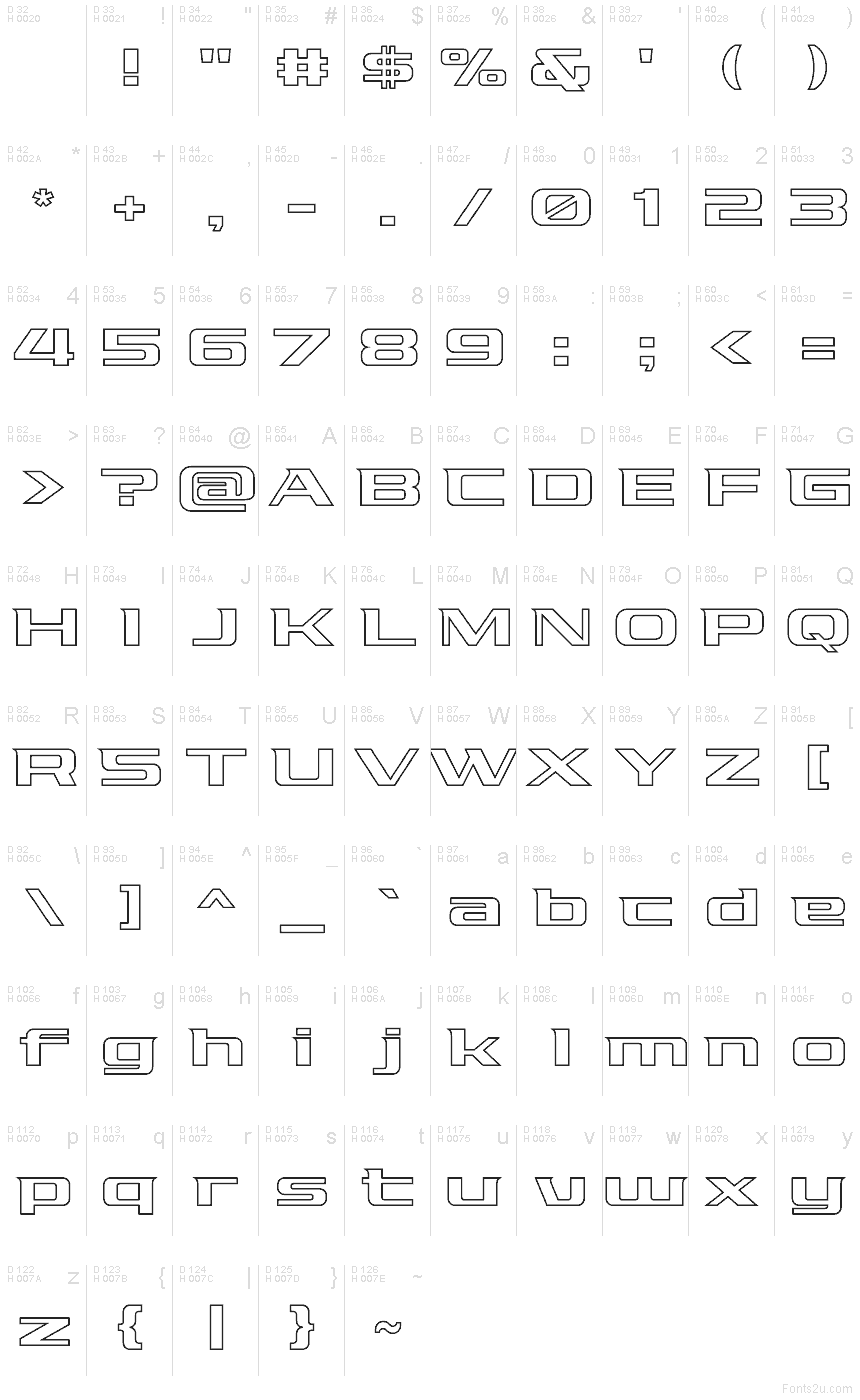
Pro Racing Outline
Pro Racing Outline font by Sronstudio is a bold, display design with an expanded body. The sleek geometric shapes combined with the technical calligraphy give this techno font a highly modern aesthetic. It immediately stands out with its racing-inspired theme which reflects speed, movement, and excellence.
Among several of Pro Racing Outline’s uses is headlines in magazines, newspapers, or brochures. A free display font for movie titles, video games cover artwork or on-stream overlays including Youtubers’ intros/outros graphics or road-traffic-related signage and product labels for toys.